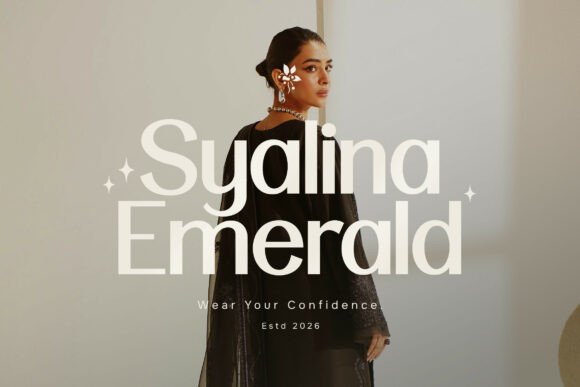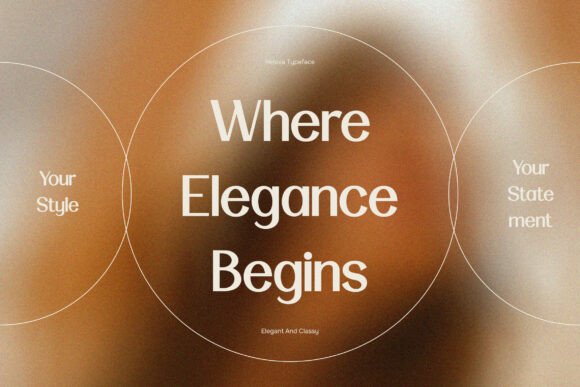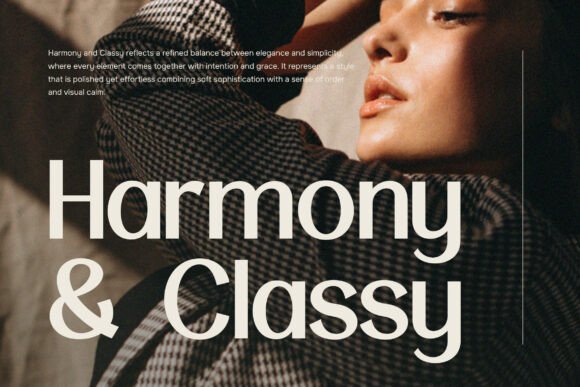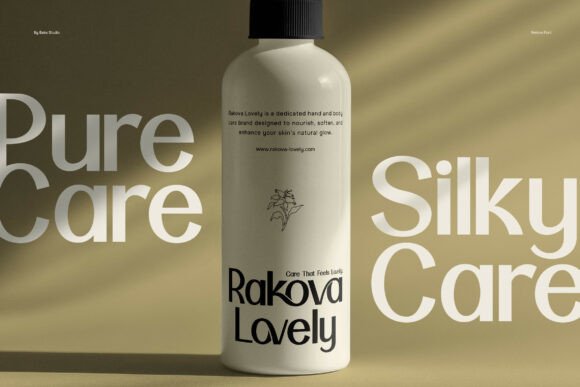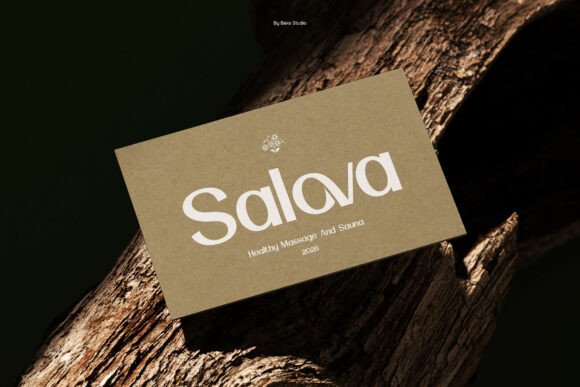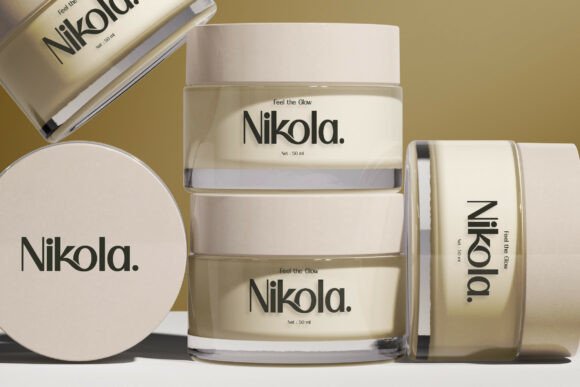
Introduction to Relova Font
Relova an elegant and classy retro sans font designed to bring a high end, bespoke feel to your typography.
These unique, interlocking letterforms allow you to create stunning, custom made logotypes in seconds just by typing Relova captures the sophisticated, sunkissed aesthetic of vintage fashion magazines, translating it into a highly functional, modern digital typeface.